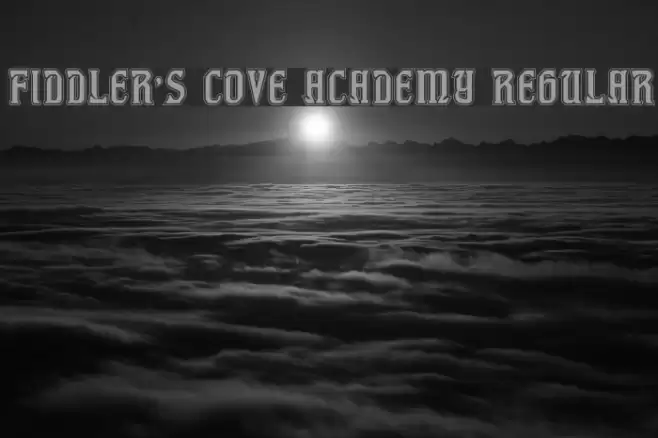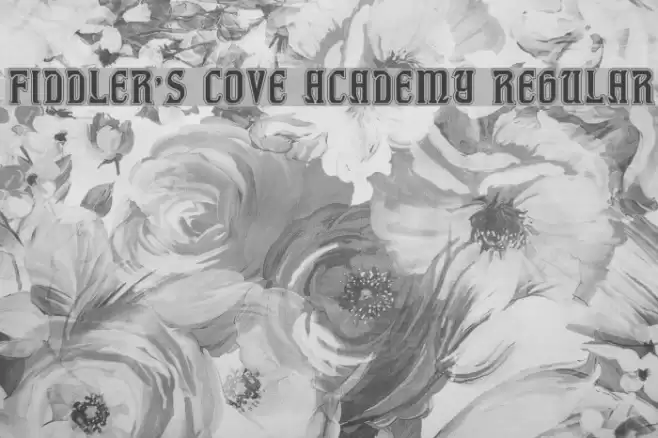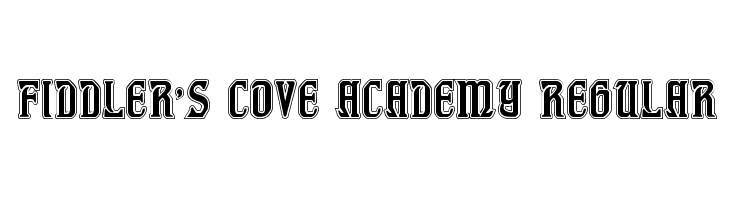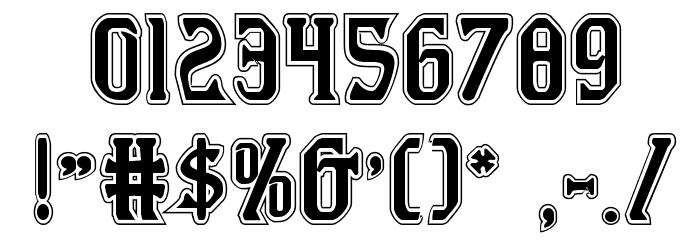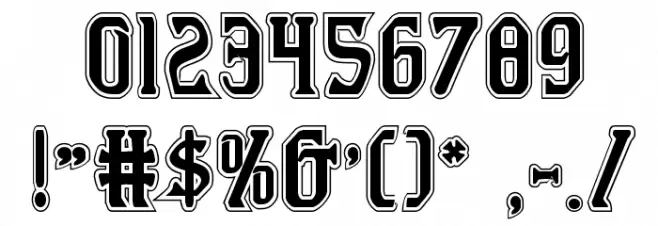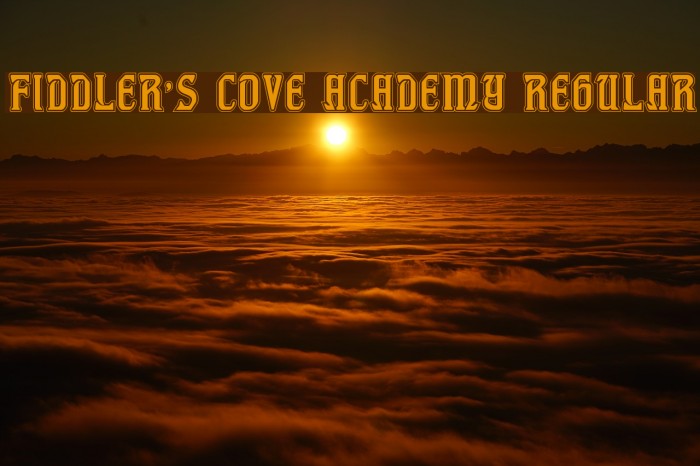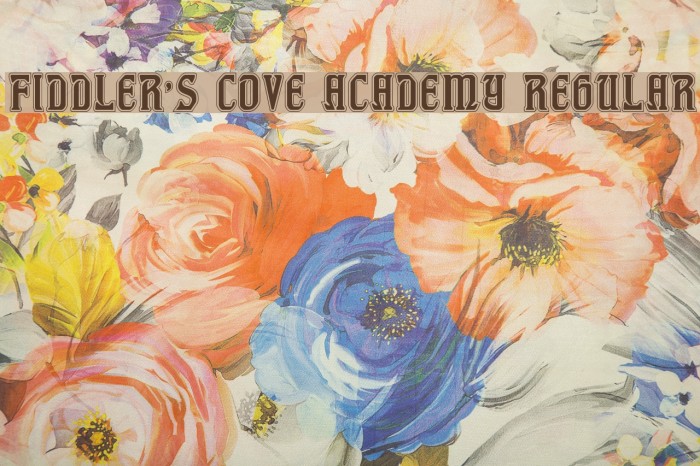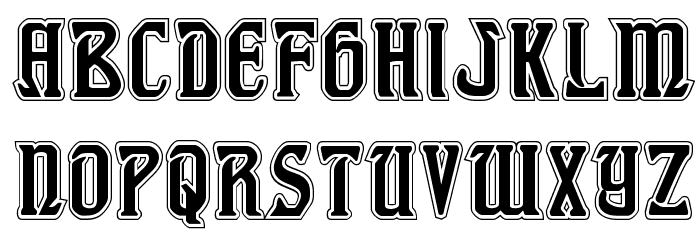
Fiddler's Cove Academy Regular Font
Fiddler's Cove Academy Regular Description
This font features a bold and decorative style with a strong presence. Each character is outlined, creating a shadow effect that adds depth and dimension. The letters are uppercase and have a distinct, angular design with sharp edges and a slight vintage flair. The numbers and special characters maintain this bold, outlined aesthetic, ensuring consistency across all glyphs. The font's unique style makes it stand out, suitable for projects that require a strong visual impact.
A bold, decorative font with outlined characters and a vintage flair from Uncategorized fonts.
- Proposed Projects: Ideal for posters, logos, headlines, and any design needing a bold, eye-catching typeface.
- Overall Style: Vintage, Decorative